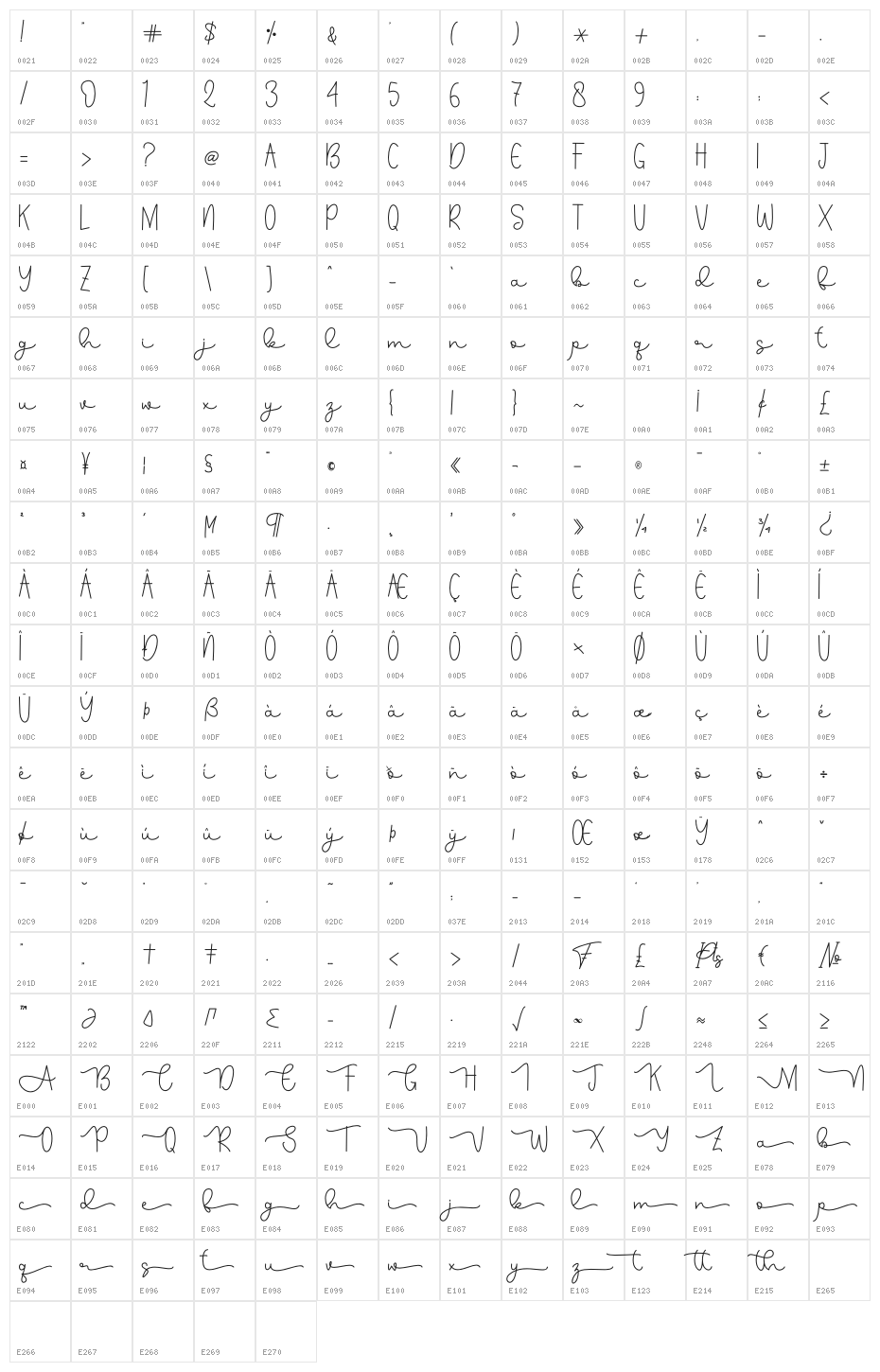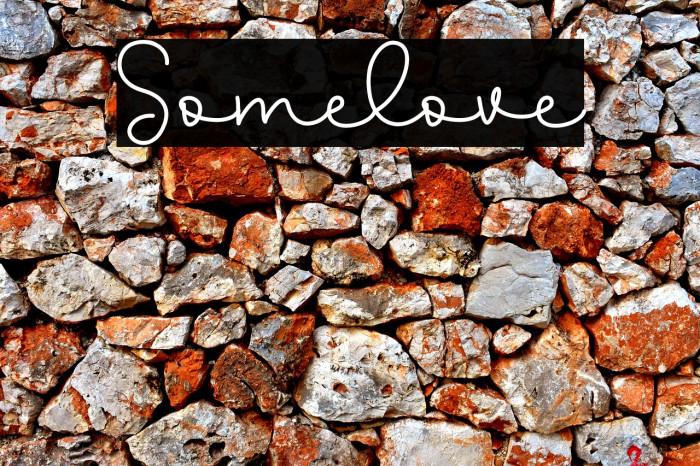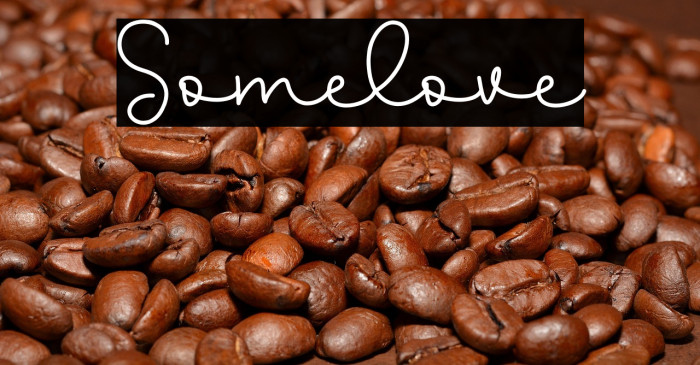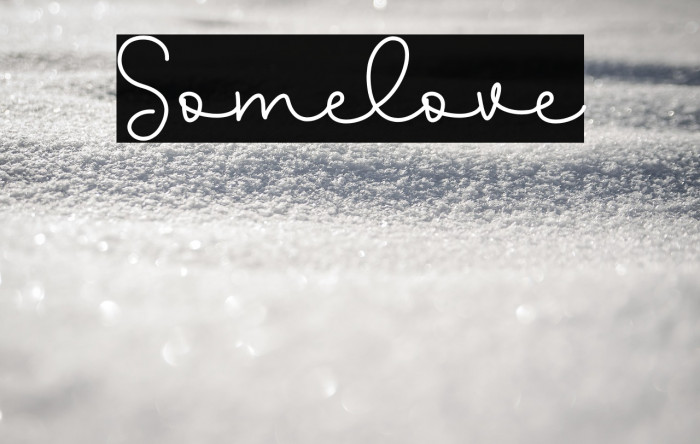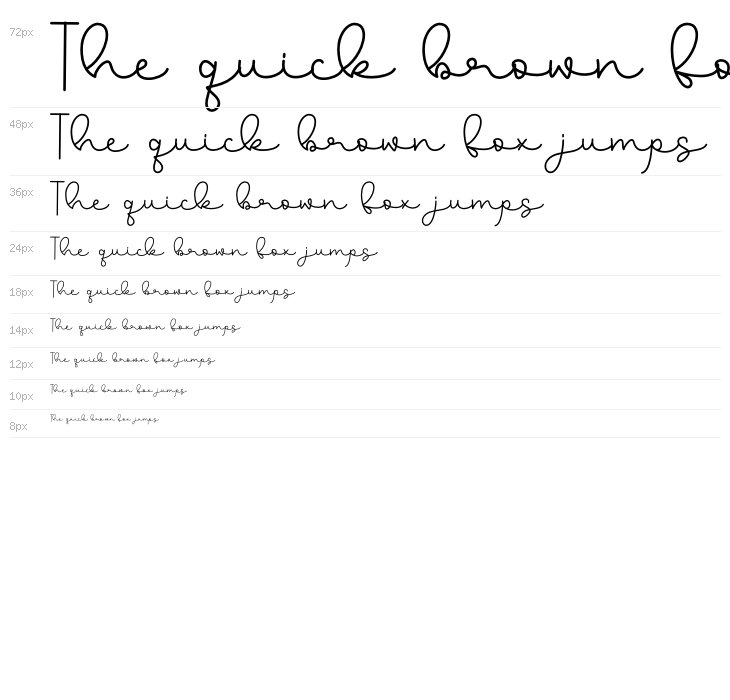
Somelove Font
Somelove Description
A playful, handwritten script with tall, narrow letters and consistent stroke width, featuring rounded curves and a casual, whimsical appearance. The uppercase and lowercase characters are distinct, with the lowercase set exhibiting connected, cursive-like forms.
| Overall Style | Playful, Casual, Whimsical |
| Use Case | Logos, Headlines, Invitations, Informal text |
| Proposed Projects | Greeting cards, invitations, children's books, playful branding, social media graphics. |